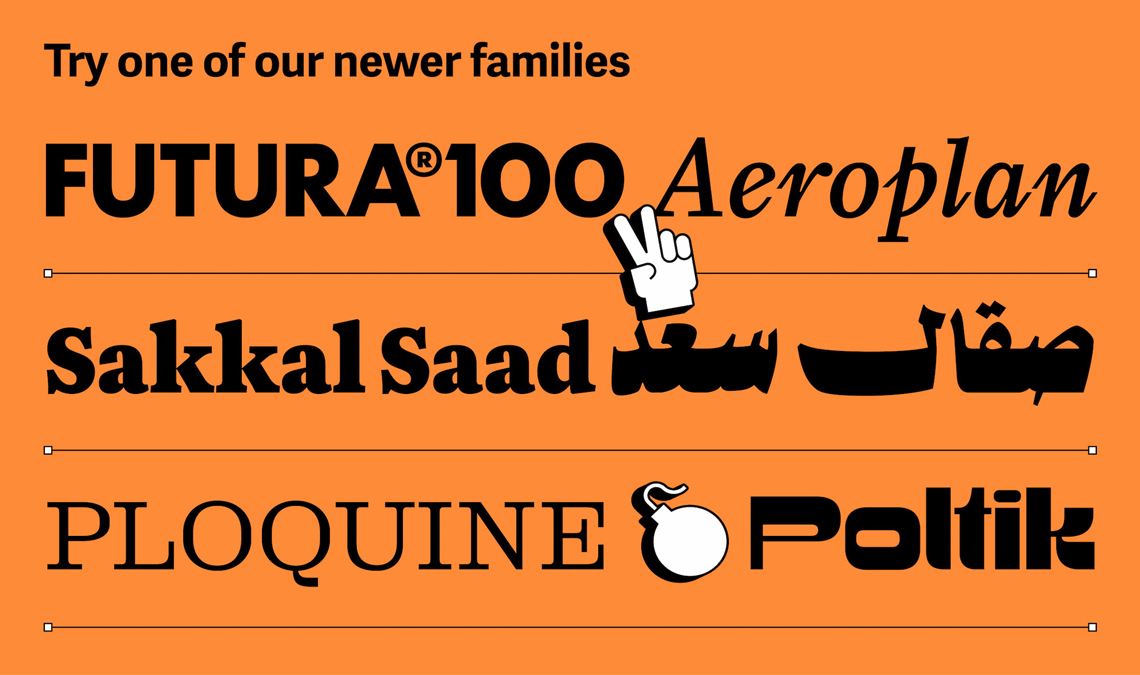
Try one of our newer families, like the expanded multiscript Futura®100, the funky Poltik or the expressive Sakkal Saad. Or grab something from our winners circle, like pairing the unique Sanserata with Alverata, Playpen Sans with Rezak, Bely with Lektorat, or the trusted editorial bundle of Aneto, Belarius, and Catalpa. The sky’s the limit.